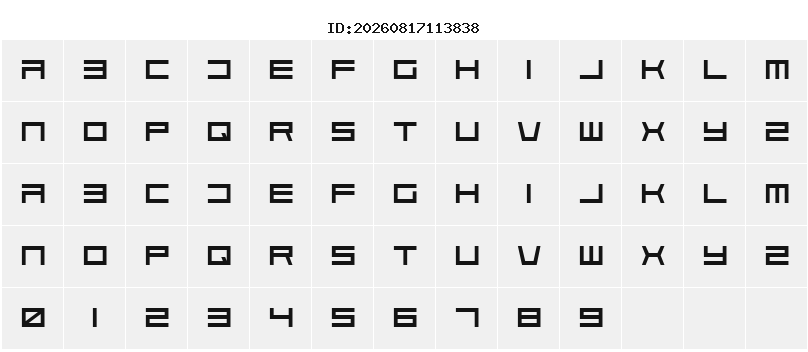
Solaria Preview
• Font Name: Solaria
• Full Font Name: Solaria
• Designer: Roland Huse
About Solaria.ttf
Solaria.ttf is a modern, elegant sans-serif font designed for ultimate readability and visual harmony. Perfect for branding, headlines, web design, and print materials.